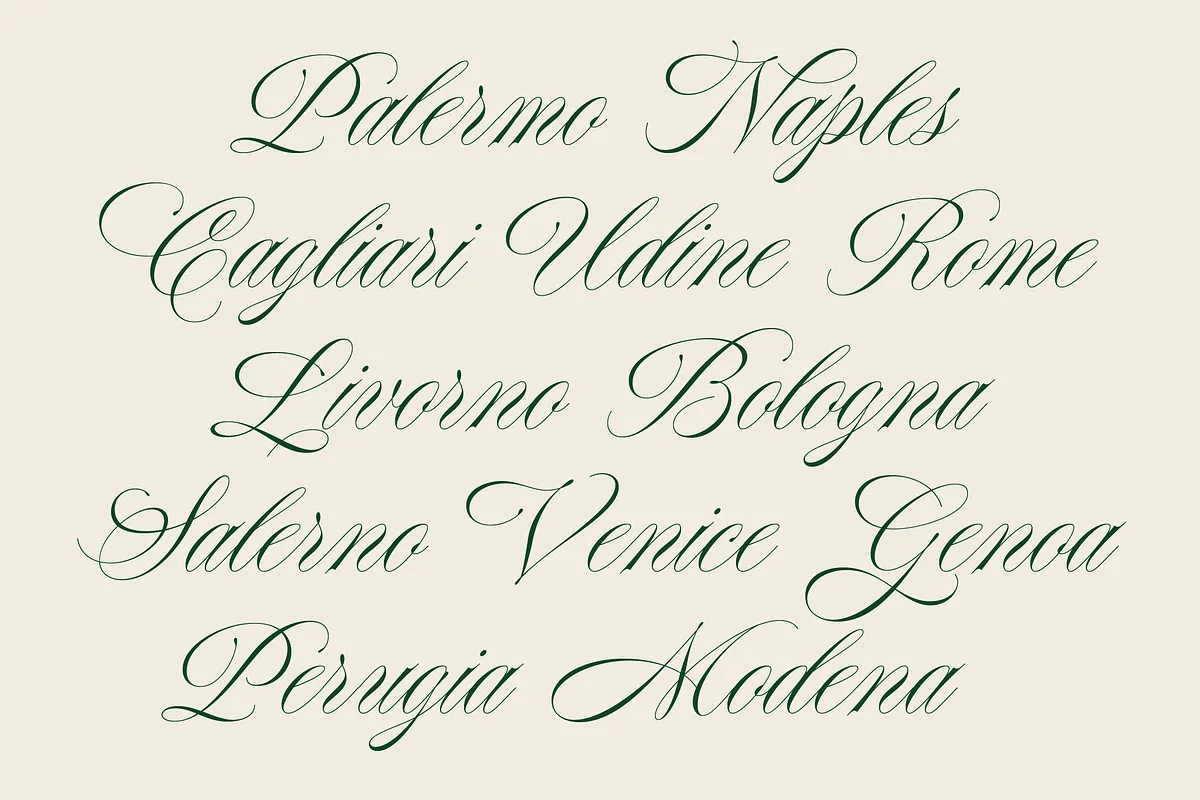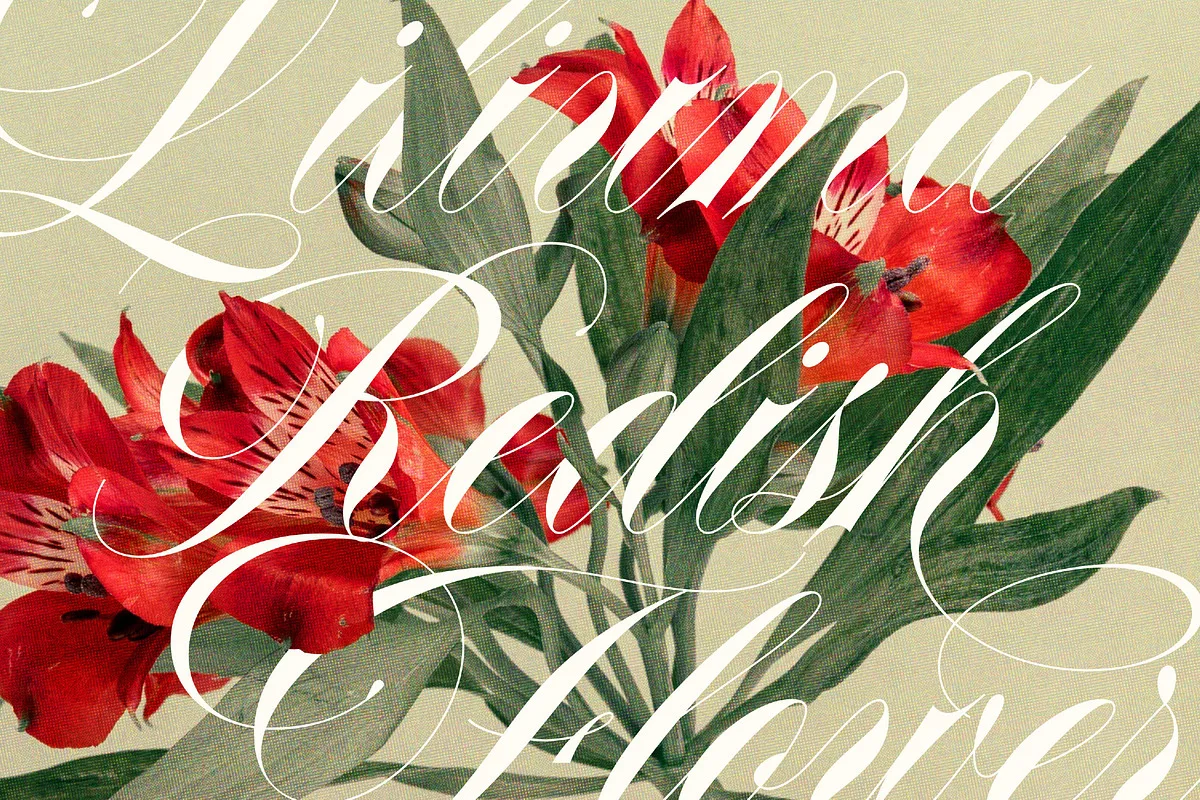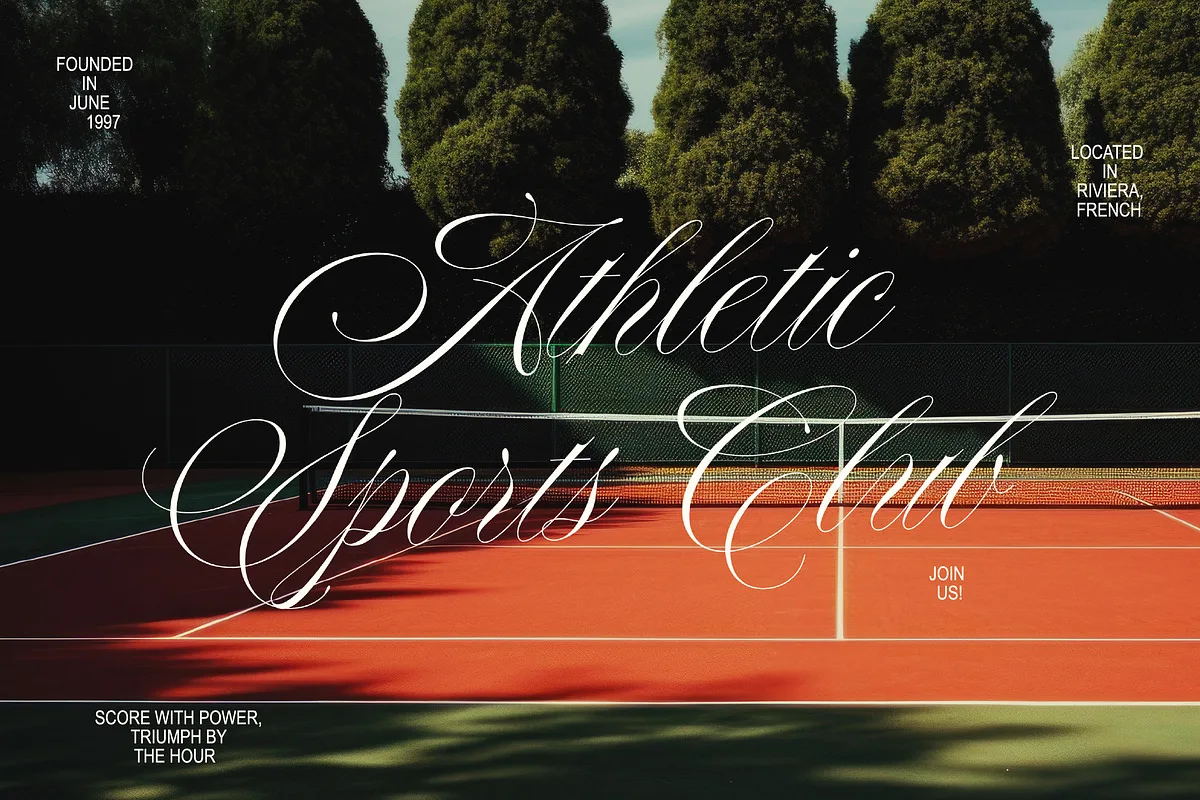
Monalisa Script is a superbly crafted superfine calligraphy script font, designed with a classic, feminine, and elegant touch. This beautiful typeface is available in two versions: regular and bold.
Monalisa Script stands out with its extensive glyphs collection. Each letter has many alternatives, which are easy to access by adding a number after the letter you want to change, for example, just type : G2, G3, G4, and more.
The font highly versatile, offering endless possibilities for customization and creativity in your designs, such as Branding, Logo, Ads, Merchandise, Social Media Post, Packaging, Magazine Cover, Website, Wedding Invitation, and many more.
- Bold and Regular Version
- Stylistic set (ss01, ss02, ss03, etc)
- Numeral & Punctuation
- Ligature
- Multilingual Support